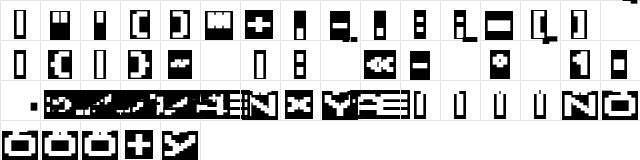
LomoWallStrip LT Std 100 Regular Font Preview
LomoWallStrip LT Std 100 Regular
LomoWallStrip LT Std 100 Regular Font Details
| Designer | Fidel Peugeot |
Design Context for LomoWallStrip LT Std 100 Typeface
LomoWallStrip LT Std 100 is a composed and adaptable typeface that performs quietly and consistently across a wide range of design contexts. Its slender proportions lend an understated elegance to any composition.